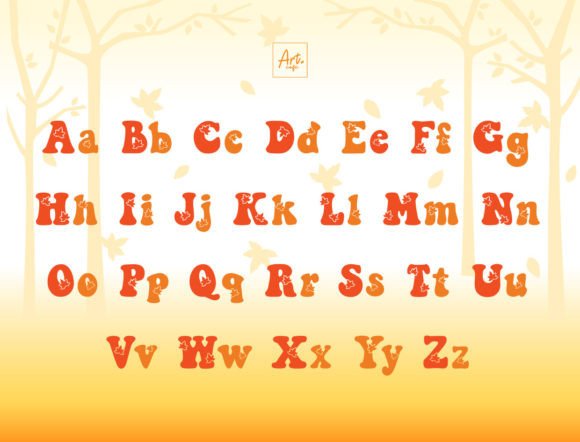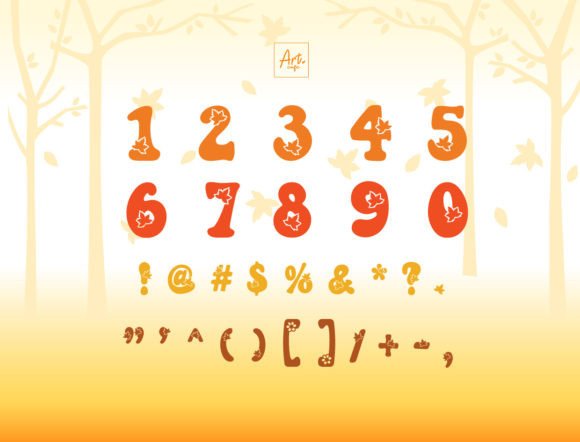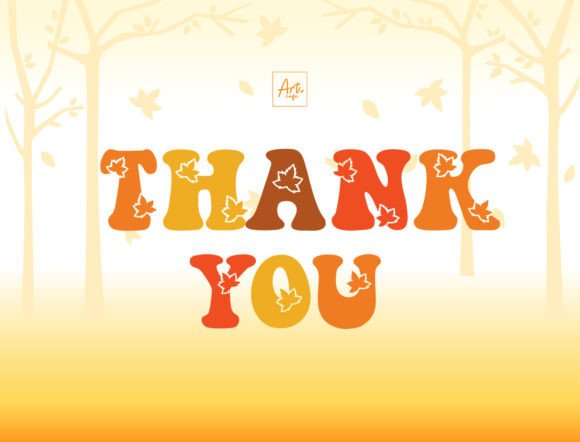
Introduction to Groovy Autumn Font
Welcome the crisp fall season with Groovy Autumn – an aesthetically pleasing font design that intertwines the beauty of autumnal maple leaves within its design.
Ideal for crafting bold headlines and posters that resonate with the charm of Fall, it also holds a patriotic style, making it perfect for Canada Day celebrations and related events Experience the warmth of Autumn and draw in attention across seasons with Groovy Autumn.
Key Features of Groovy Autumn Font